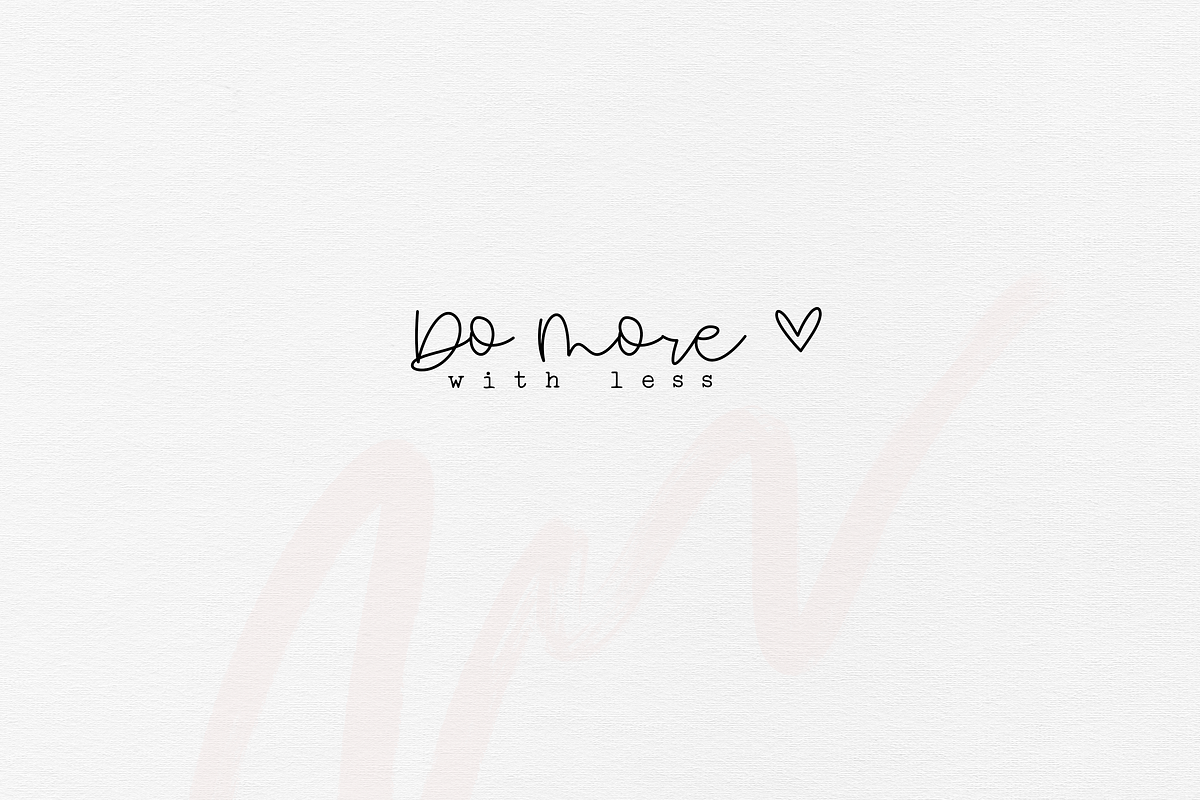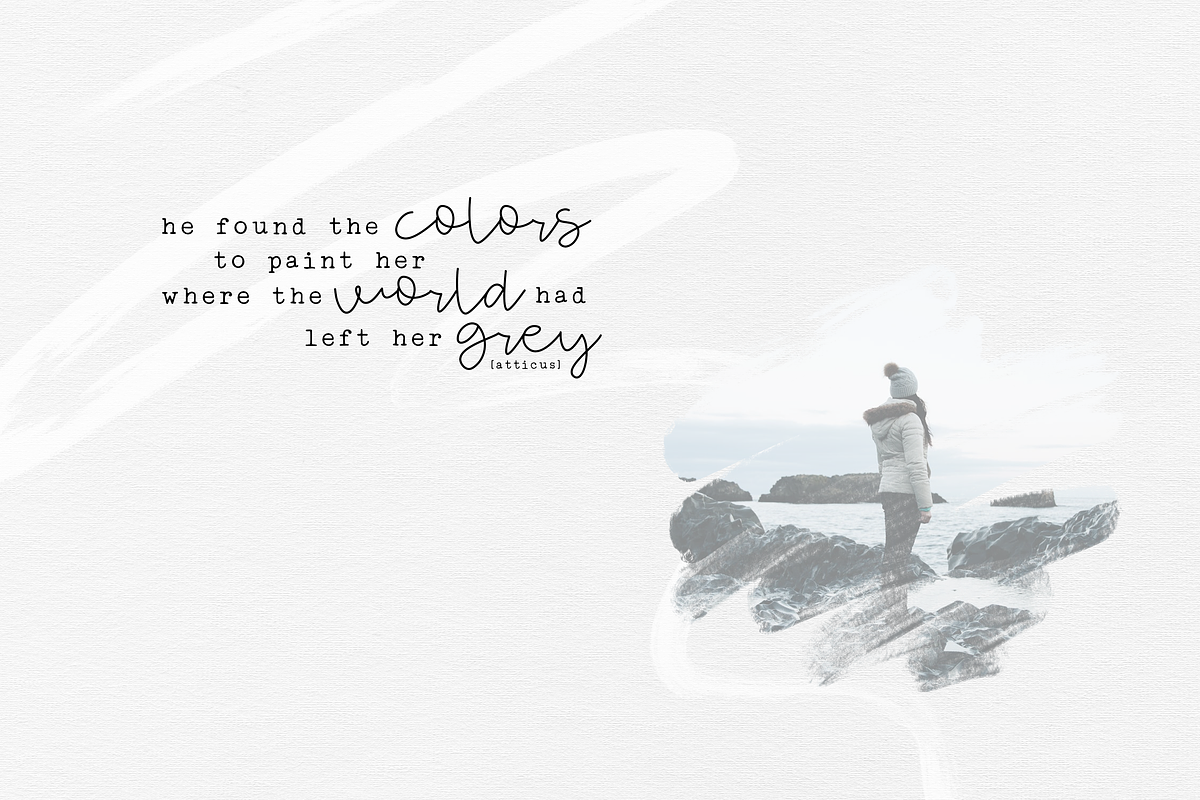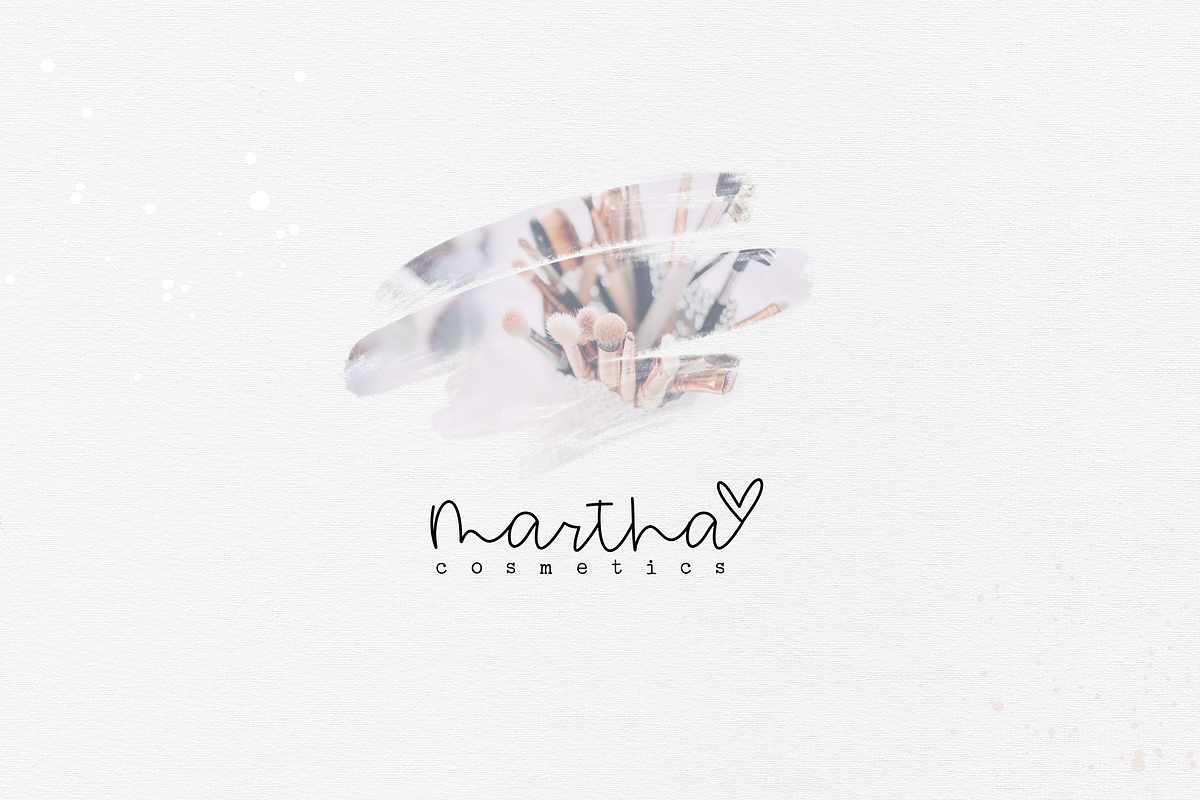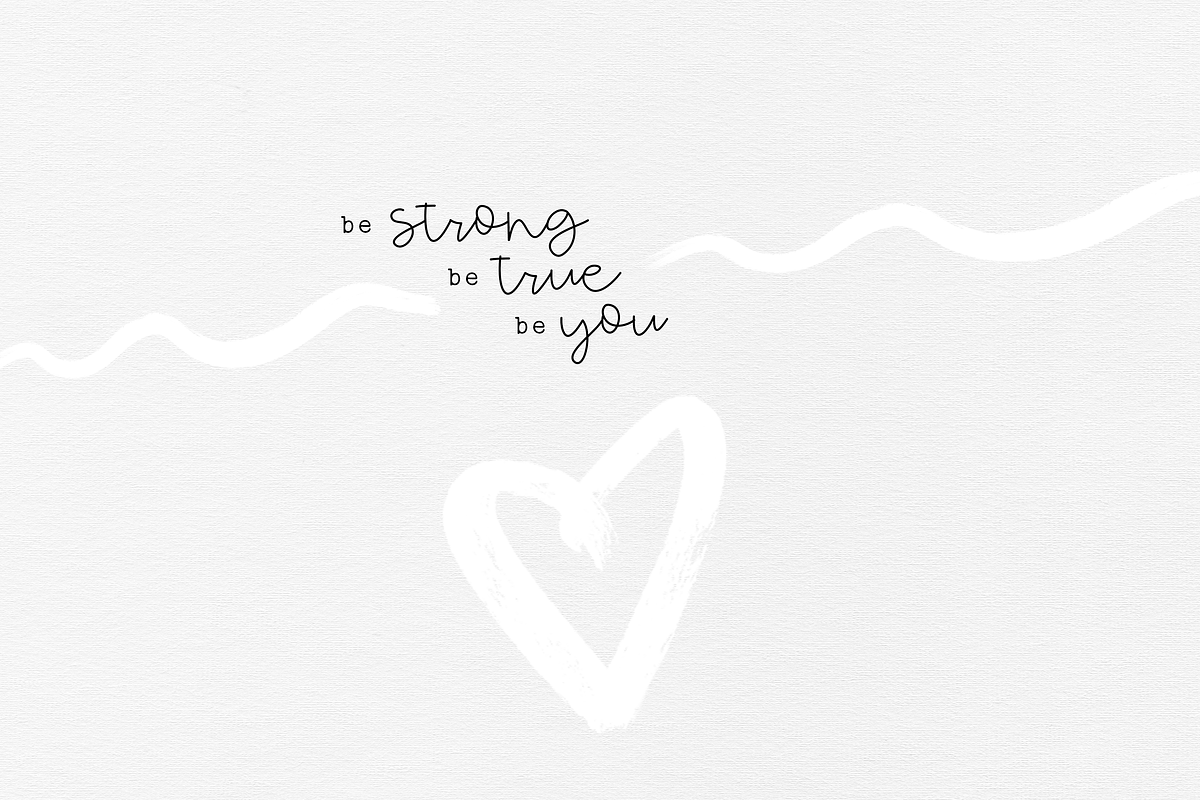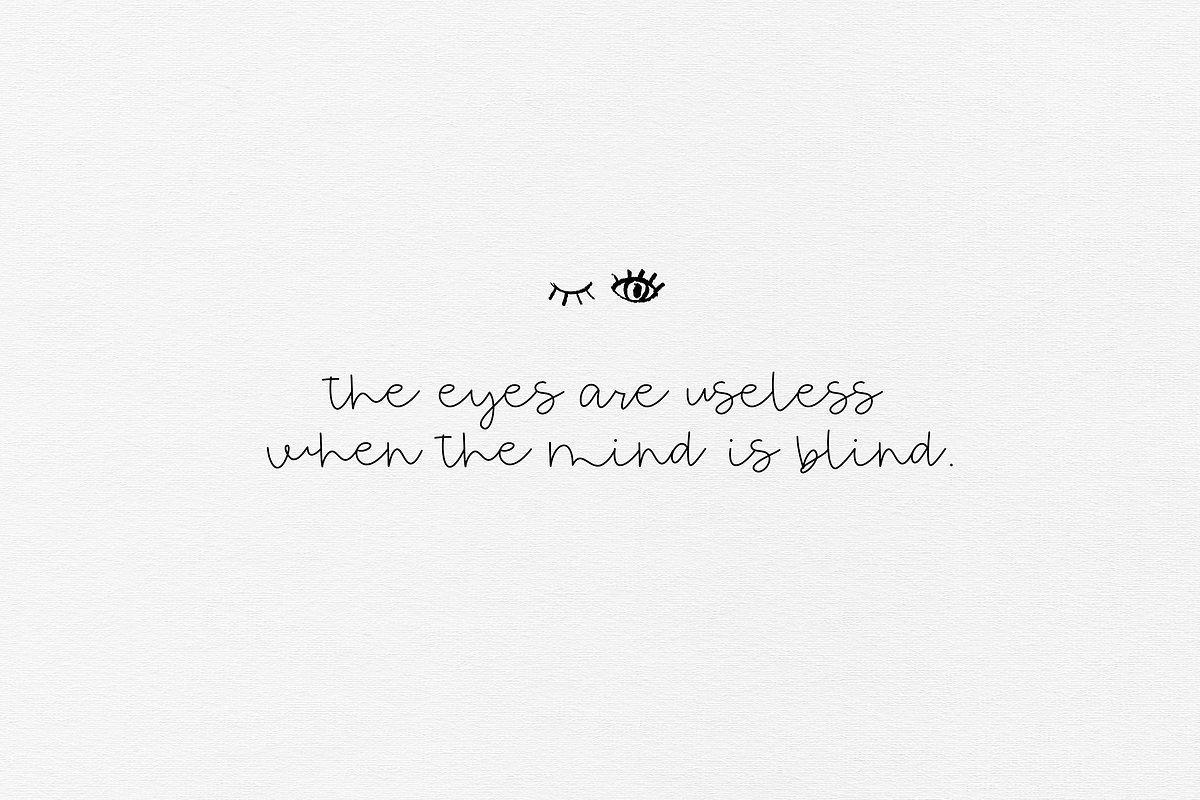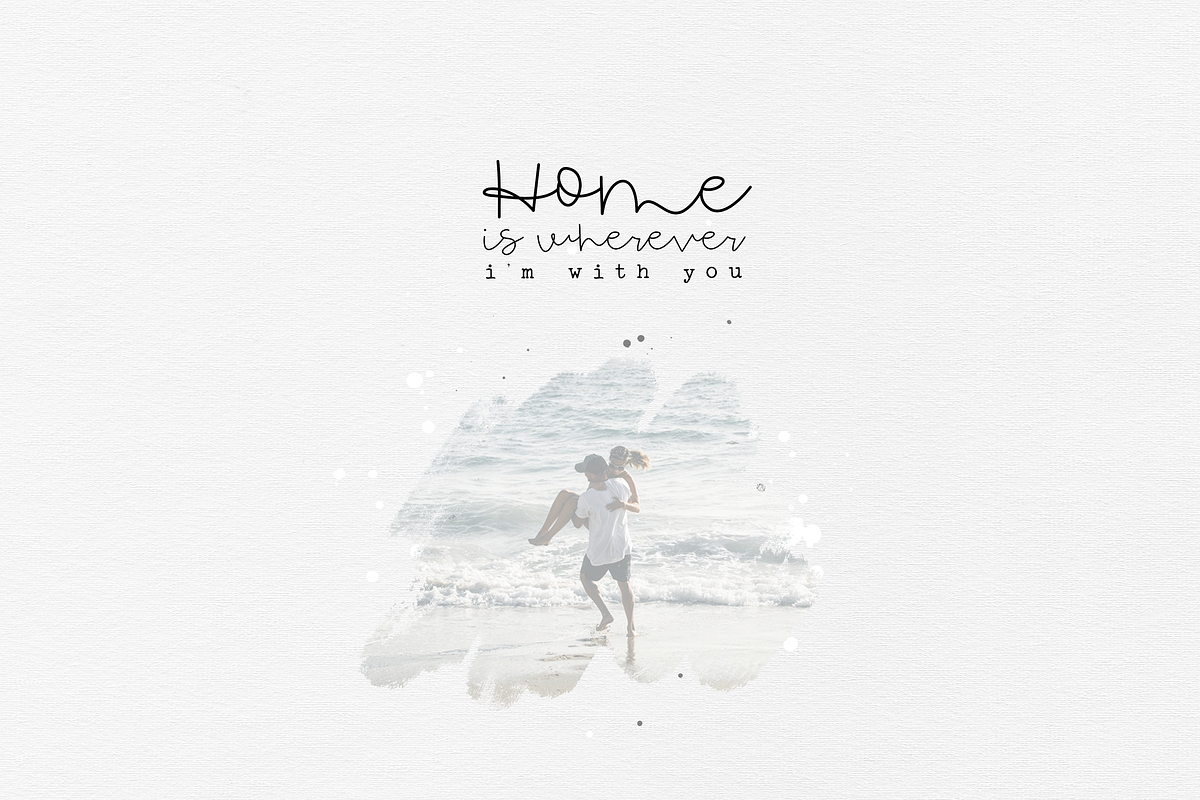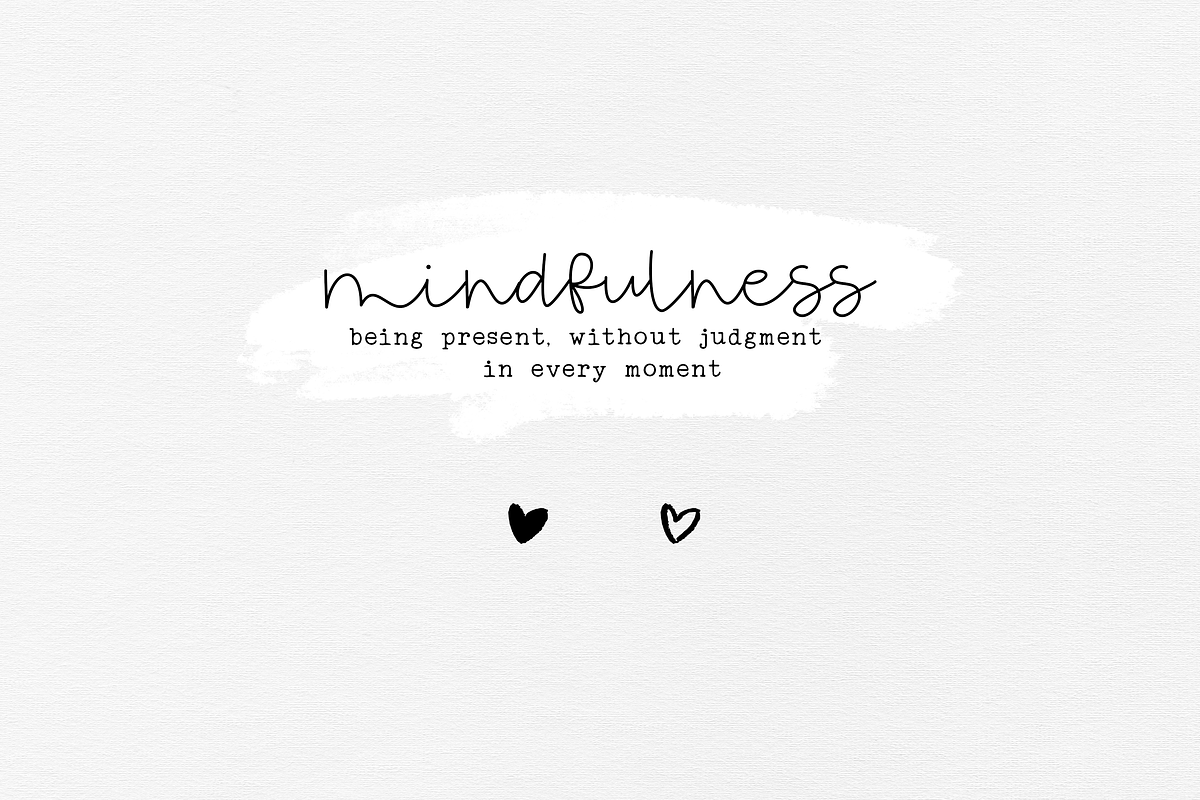
Frosting - Handwritten Script Font
Frostingis a handwritten script font. The letters are classy and unique.
This font is perfect for quotes, headings, blogs, logos, invitations and more!
Frosting - Handwritten Script Font by KA Designs fits naturally into Branding, posters, packaging, typography.